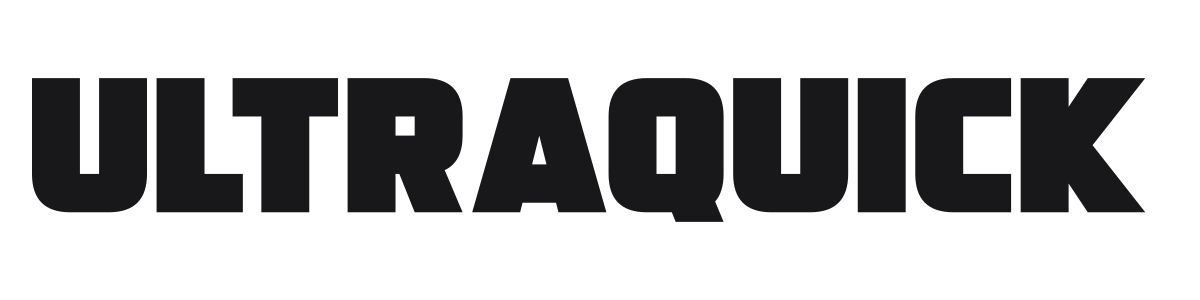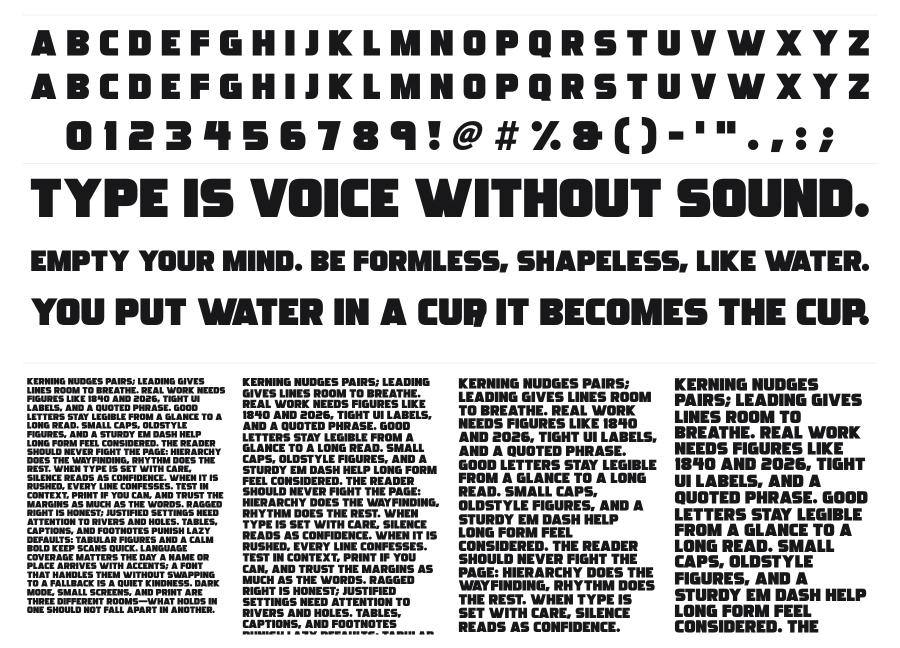
Ultraquick
Ultraquick is an ultra-heavy condensed sans-serif built for maximum impact at large sizes. Its near-zero stroke contrast, squared terminals, and tightly packed characters create a wall of type that commands attention. The design channels the aggressive energy of 1970s sports and action graphics with a clean, modern edge.